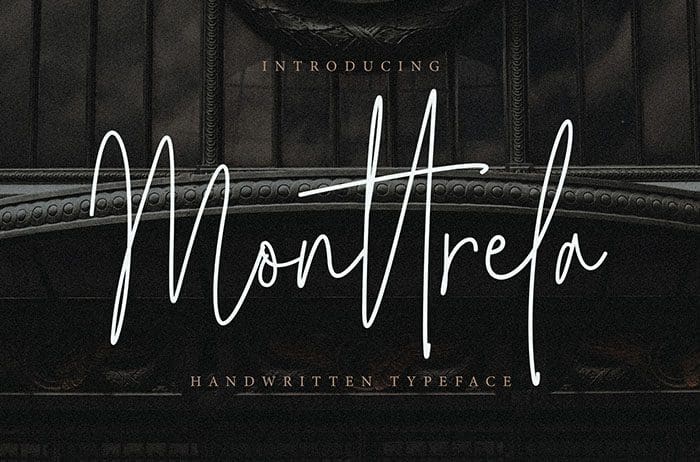
Monttrela Handwritten Font
Monttrela is a beautiful handwritten font with a script style that makes this font looks natural and classy. Perfect for any awesome projects. Thanks to Creatype Studio for sharing this font! Take a look at this portfolio for more of his stunning fonts.